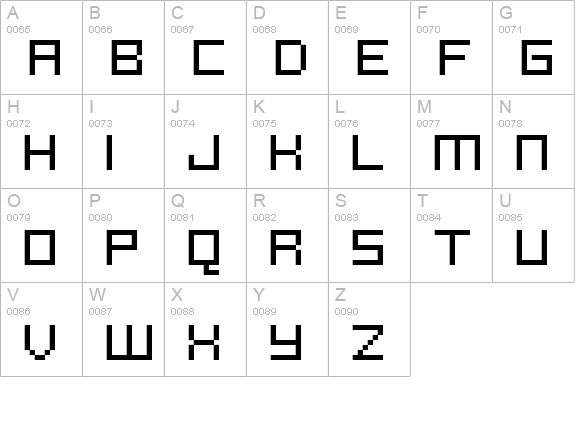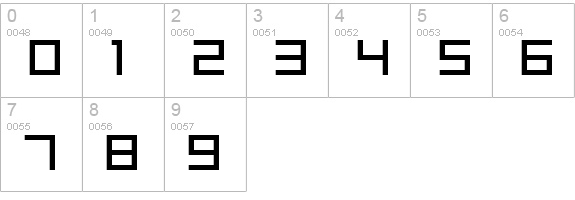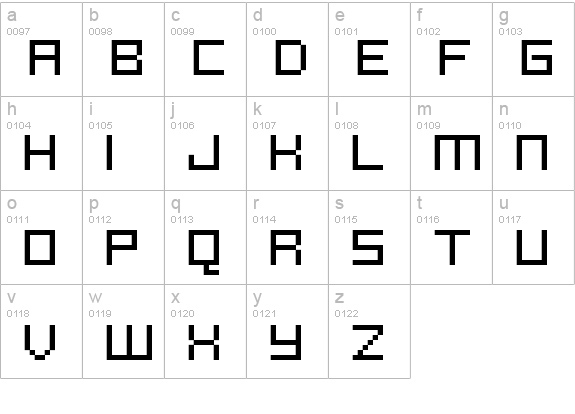
FFF Reaction Extended is a distinctive, extended-width variant in the FFF typeface family \xE2\x80\x94 well suited to design and typography projects.
The FFF Reaction Extended font is a modern and versatile typeface designed to make a bold statement in your designs. With its sleek and edgy letterforms, this font is perfect for creating eye-catching headlines, posters, and logos. The extended character set allows for added creativity and customization, making it a must-have font for designers looking to stand out. This font is available for free download at FontsMarket.com, where you can access a wide range of high-quality fonts for your projects. Whether you're working on a branding project, website design, or print materials, FFF Reaction Extended is sure to elevate your work and make a lasting impression. Don't miss out on this fantastic font that combines style, versatility, and impact – download it today and take your designs to the next level!